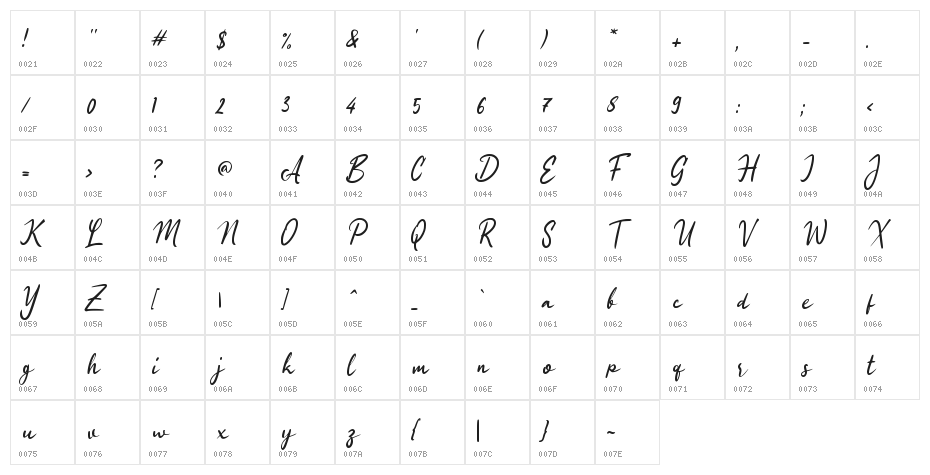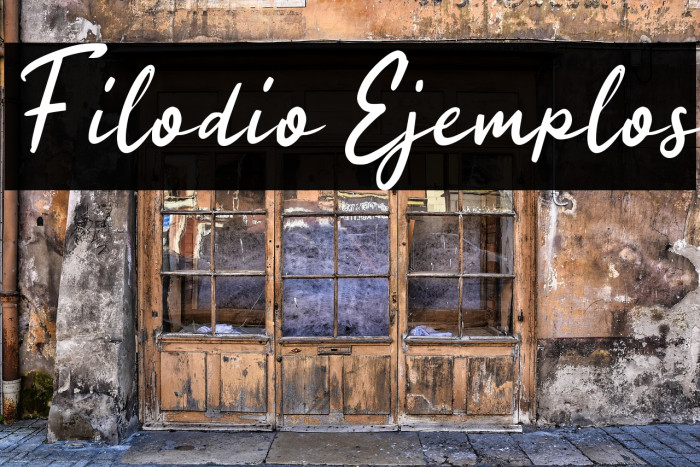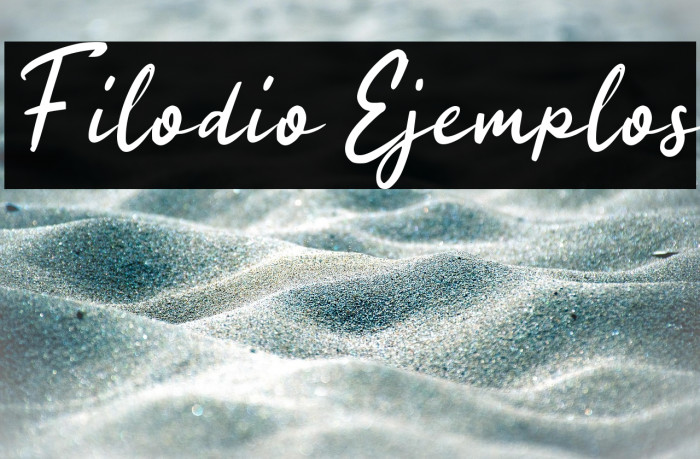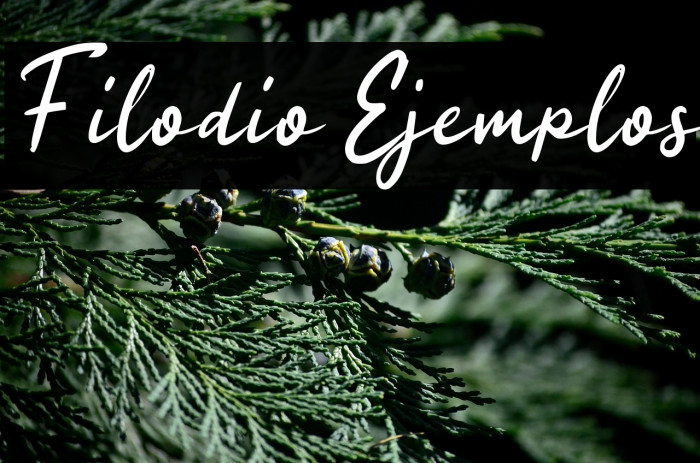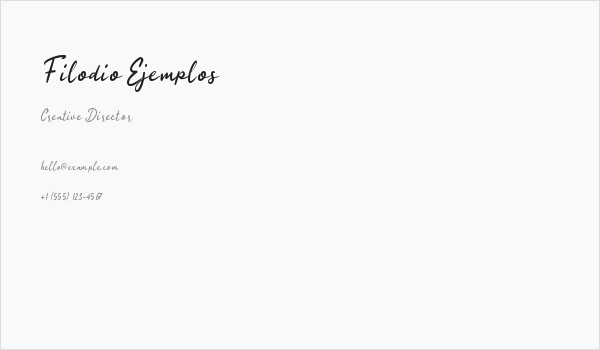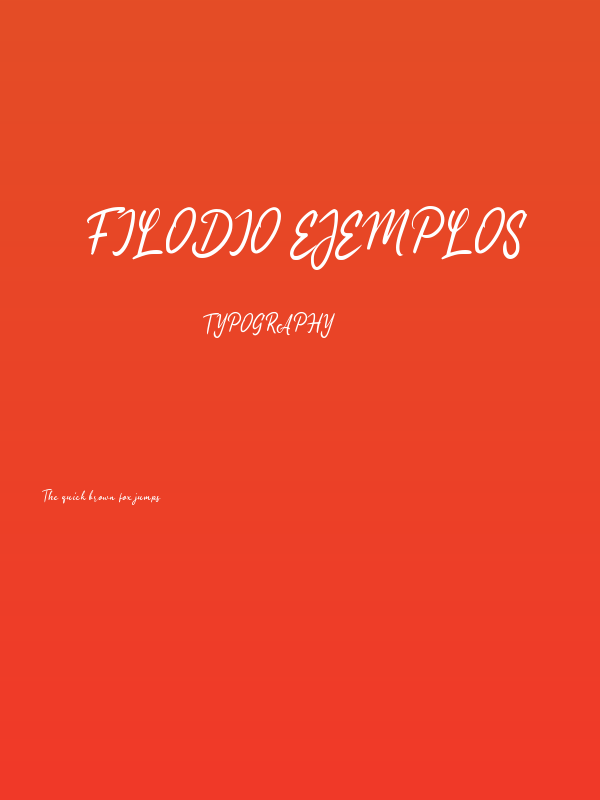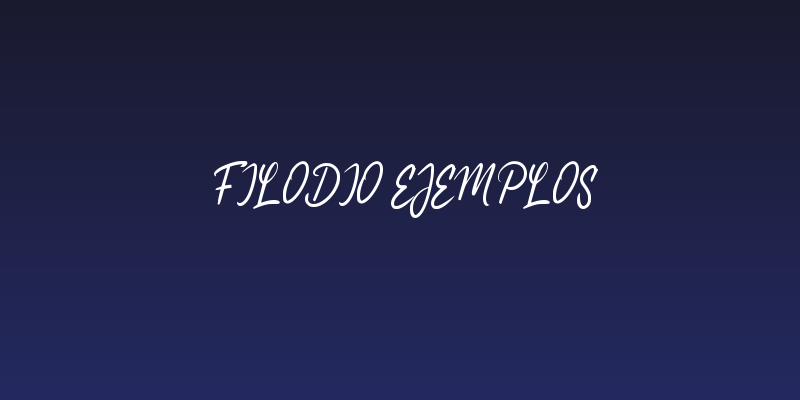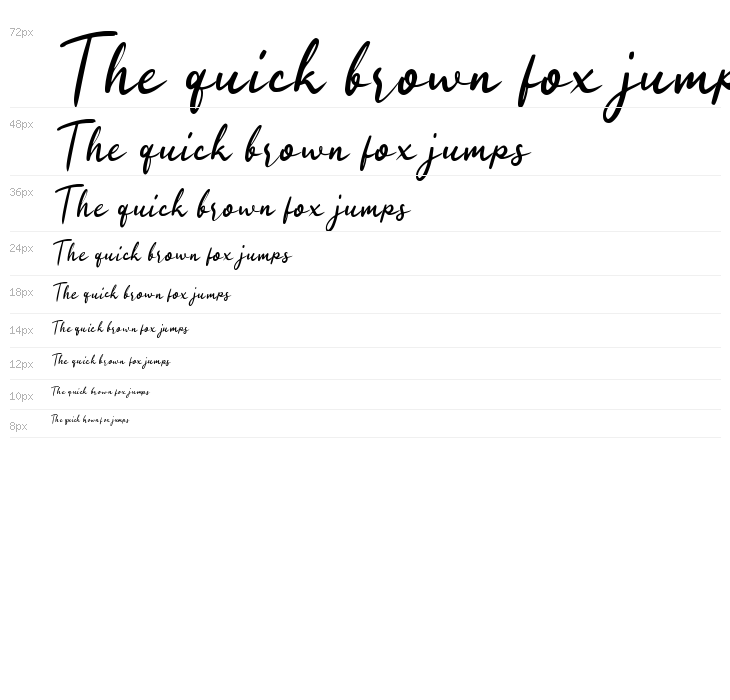
Filodio Ejemplos Font
Filodio Ejemplos Description
This font features a flowing, cursive style with elegant and smooth strokes. The uppercase letters are bold and prominent, with a slight slant that adds a dynamic feel. The lowercase letters maintain a consistent style, offering a harmonious blend with the uppercase. Numbers are clear and legible, matching the overall aesthetic. Special characters are designed with flair, complementing the script style. The font's overall appearance is sophisticated and artistic, making it suitable for creative and formal applications.